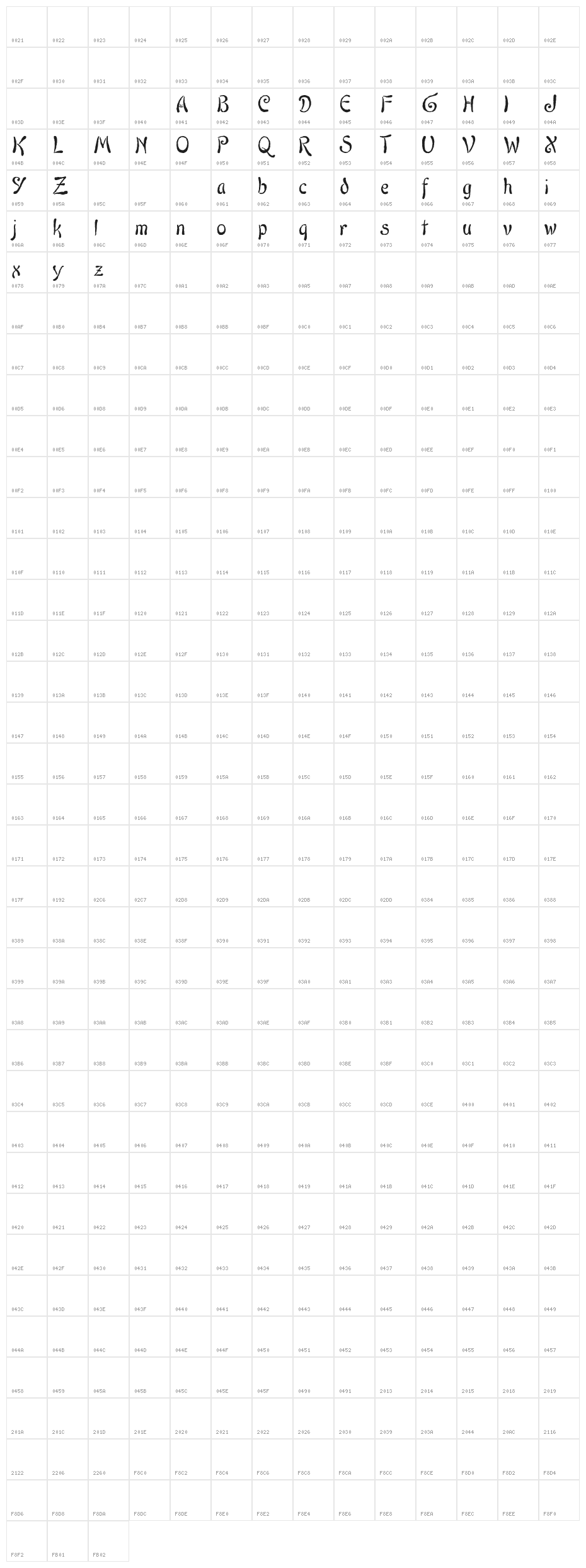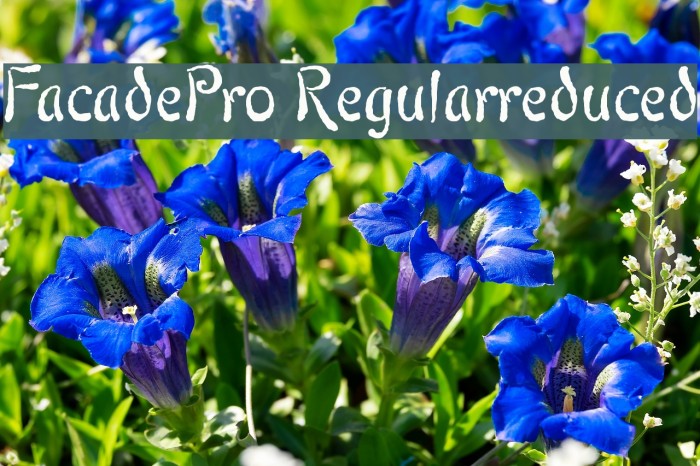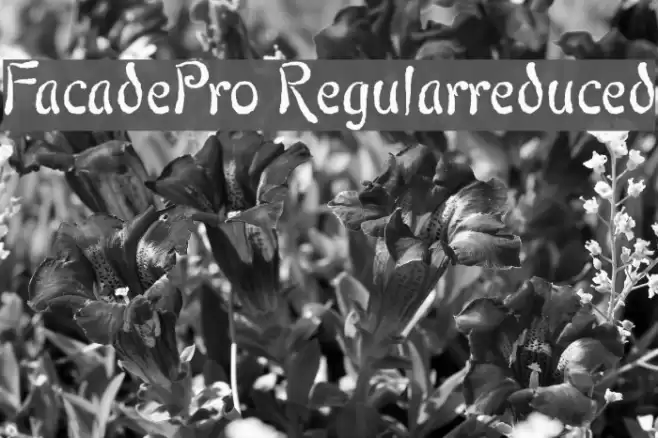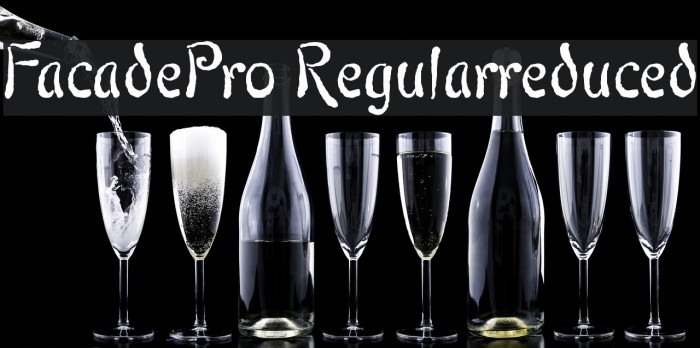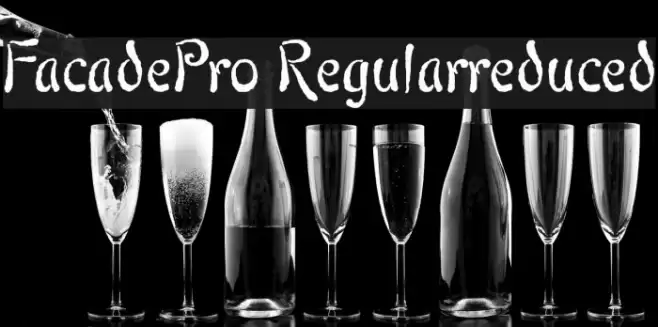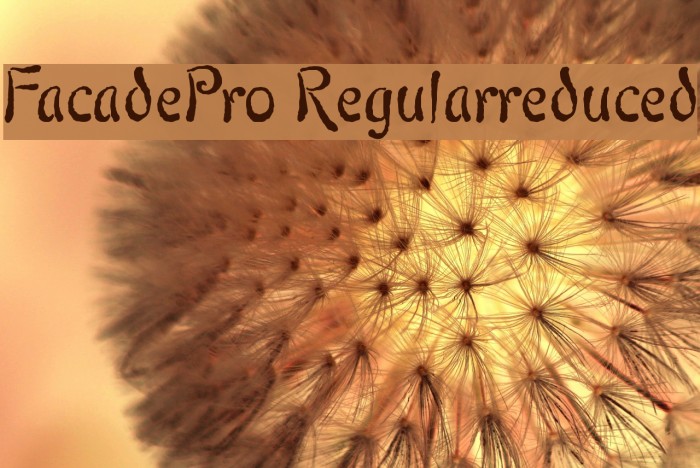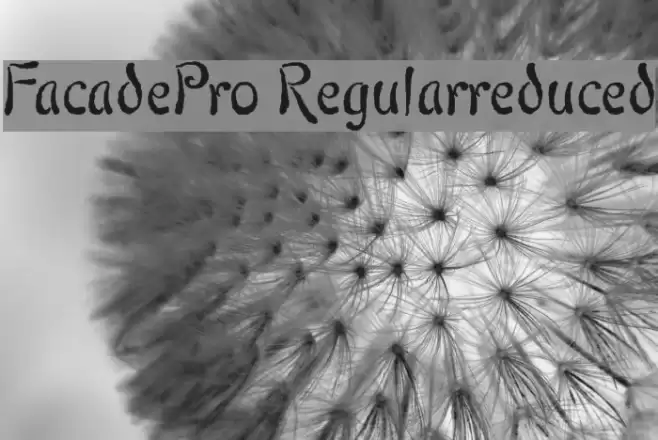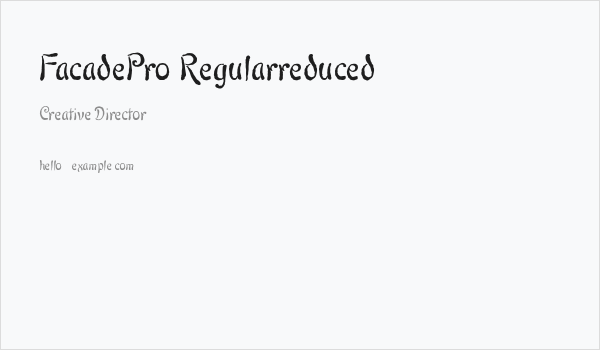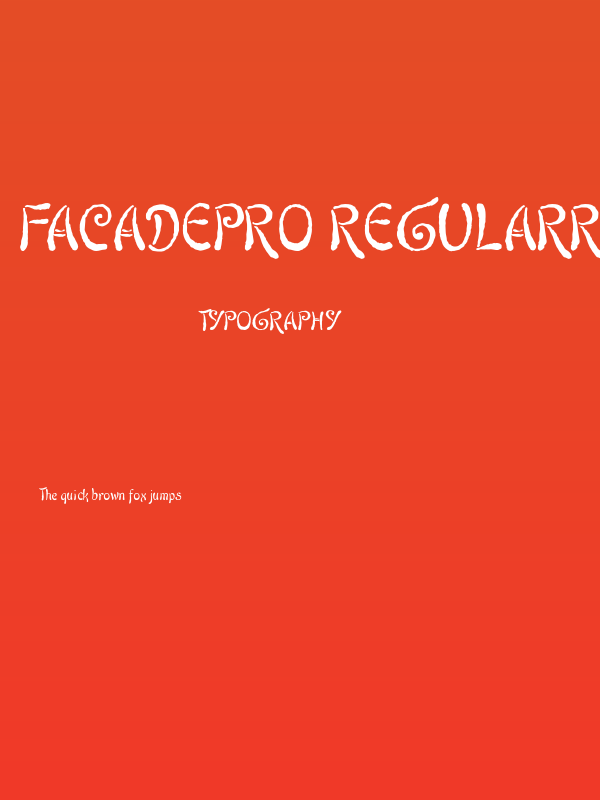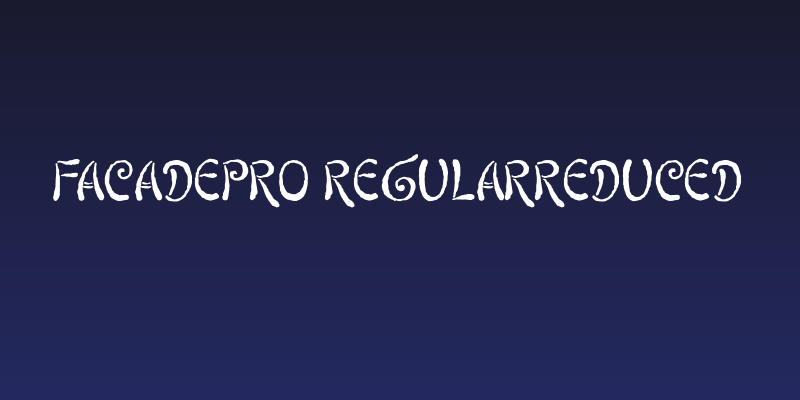
FacadePro-Regularreduced Font
FacadePro-Regularreduced Description
This font features a unique and artistic design with a hand-drawn appearance. The letters are characterized by their uneven strokes and whimsical curves, giving them a playful and organic feel. The uppercase letters exhibit a mix of bold and slender lines, with some incorporating decorative swirls and flourishes. The lowercase letters maintain this artistic style, with varying stroke thicknesses and an informal, yet elegant, appearance. The numbers and special characters follow the same design principles, ensuring consistency throughout the font. This font is ideal for projects that require a creative and distinctive touch.
| Overall Style | Artistic, Whimsical |
| Use Case | Headlines, Artistic designs, Invitations |
| Proposed Projects | Perfect for creative projects such as invitations, posters, branding, and artistic designs. |